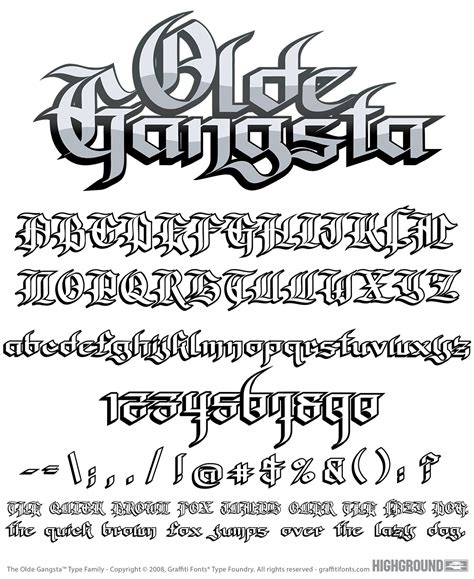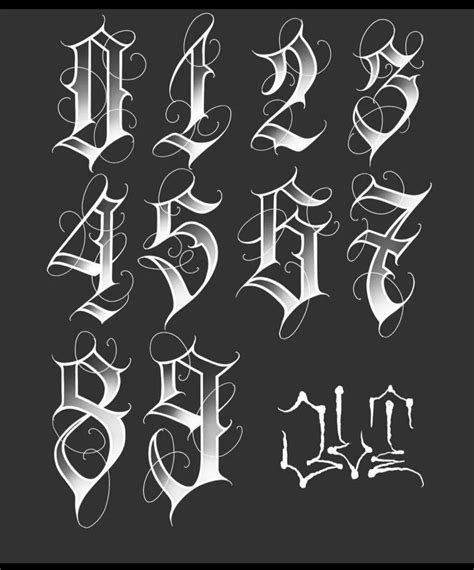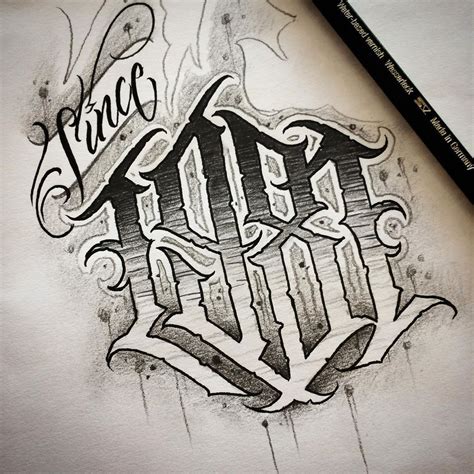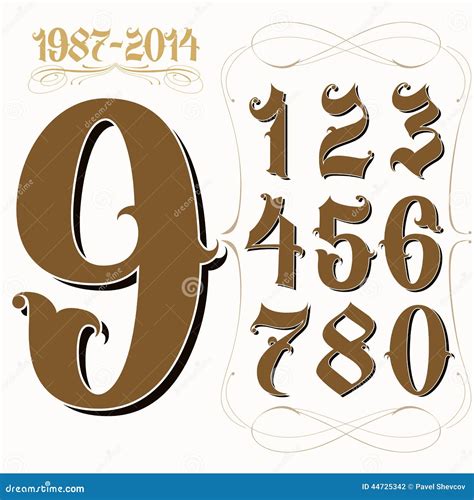
Gangster Chicano Number Fonts have a rich history and cultural significance, deeply rooted in the vibrant and expressive world of Chicano art and graffiti. These fonts are more than just a stylistic choice; they are a form of visual storytelling that reflects the experiences, struggles, and triumphs of the Chicano community. Understanding the origins, evolution, and cultural impact of these fonts provides a deeper appreciation for their unique aesthetic and the stories they tell.
Origins of Gangster Chicano Number Fonts
The roots of Gangster Chicano Number Fonts can be traced back to the 1960s and 1970s, a period marked by significant social and political changes in the United States. During this time, the Chicano community, particularly in urban areas like Los Angeles, was grappling with issues of identity, discrimination, and social justice. Graffiti became a powerful medium for expressing these sentiments, and the distinctive number fonts emerged as a key element of this visual language.
These fonts were often used to mark territory, signify gang affiliation, or simply to leave a personal mark on the urban landscape. The numbers themselves were not just arbitrary symbols; they often carried specific meanings and were used to convey messages that were both personal and communal. For example, the number "13" is often associated with the Sureños, a group of street gangs in Southern California, while the number "14" is linked to the Norteños, their counterparts in Northern California.
The Evolution of Gangster Chicano Number Fonts
Over the years, Gangster Chicano Number Fonts have evolved significantly, reflecting the changing dynamics of the Chicano community and the broader cultural landscape. Initially, these fonts were characterized by their bold, blocky style, often featuring thick outlines and sharp angles. This style was both practical and symbolic, as it allowed the numbers to stand out against various surfaces and conveyed a sense of strength and defiance.
As the years progressed, the fonts began to incorporate more intricate designs and decorative elements. Artists started experimenting with different styles, such as bubble letters, wildstyle, and 3D effects, adding layers of complexity and visual interest. These evolutions were driven by a desire to push the boundaries of what was possible within the medium and to create more personalized and expressive forms of communication.
Today, Gangster Chicano Number Fonts continue to evolve, influenced by a wide range of artistic movements and cultural trends. Digital tools and software have also played a significant role in this evolution, allowing artists to create more detailed and sophisticated designs. Despite these changes, the core elements of these fonts—boldness, clarity, and cultural significance—remain intact.
Cultural Significance of Gangster Chicano Number Fonts
The cultural significance of Gangster Chicano Number Fonts cannot be overstated. These fonts are more than just a visual style; they are a form of cultural expression that reflects the unique experiences and perspectives of the Chicano community. They serve as a visual language that communicates identity, belonging, and resistance.
For many Chicanos, these fonts are a source of pride and a way to reclaim their cultural heritage. They are often used in art, music, and fashion, serving as a visual reminder of the community's resilience and creativity. The fonts have also gained recognition beyond the Chicano community, influencing mainstream art and design and inspiring artists from diverse backgrounds.
One of the most notable aspects of Gangster Chicano Number Fonts is their ability to convey complex emotions and narratives through simple, stylized numbers. This ability to communicate so much with so little is a testament to the power of visual storytelling and the enduring appeal of these fonts.
Key Characteristics of Gangster Chicano Number Fonts
Gangster Chicano Number Fonts are characterized by several key features that set them apart from other styles of typography. Understanding these characteristics can help appreciate the unique aesthetic and cultural significance of these fonts.
Bold and Thick Lines: One of the most distinctive features of these fonts is their use of bold, thick lines. This not only makes the numbers stand out against various backgrounds but also conveys a sense of strength and power.
Sharp Angles and Edges: The fonts often feature sharp angles and edges, which add to their bold and dynamic appearance. These elements also contribute to the overall sense of energy and movement in the design.
Decorative Elements: Many Gangster Chicano Number Fonts incorporate decorative elements, such as arrows, stars, and other symbols. These elements add layers of meaning and visual interest, making the fonts more expressive and personalized.
Cultural Symbols: The fonts often include cultural symbols and motifs that are significant to the Chicano community. These symbols can range from traditional Aztec designs to modern street art elements, reflecting the community's rich cultural heritage.
Personalization: One of the most important aspects of these fonts is their ability to be personalized. Artists often customize the fonts to reflect their individual styles and experiences, making each design unique and meaningful.
Examples of Gangster Chicano Number Fonts
To fully appreciate the diversity and creativity of Gangster Chicano Number Fonts, it's helpful to look at some examples. These fonts come in a variety of styles, each with its own unique characteristics and cultural significance.
Block Style: This is one of the most traditional styles of Gangster Chicano Number Fonts. It features bold, blocky letters with thick outlines and sharp angles. This style is often used for its simplicity and clarity, making it easy to read from a distance.
Bubble Style: The bubble style is characterized by its rounded, inflated letters. This style adds a playful and dynamic element to the design, making it stand out against more traditional block styles.
Wildstyle: Wildstyle fonts are known for their intricate and complex designs. They often feature interlocking letters, arrows, and other decorative elements, creating a sense of movement and energy.
3D Style: The 3D style adds depth and dimension to the numbers, making them appear more realistic and dynamic. This style is often used to create a sense of depth and perspective in the design.
Table of Gangster Chicano Number Fonts Styles
| Style | Characteristics | Common Uses |
| Block Style | Bold, blocky letters with thick outlines and sharp angles | Territory marking, gang affiliation |
| Bubble Style | Rounded, inflated letters with a playful and dynamic element | Personal expression, artistic designs |
| Wildstyle | Intricate and complex designs with interlocking letters and decorative elements | Artistic expression, complex narratives |
| 3D Style | Depth and dimension, realistic and dynamic appearance | Artistic designs, visual storytelling |
The Impact of Gangster Chicano Number Fonts on Modern Art and Design
Gangster Chicano Number Fonts have had a significant impact on modern art and design, influencing a wide range of creative disciplines. Their bold, expressive style has inspired artists and designers from various backgrounds, leading to the incorporation of these fonts into mainstream art, fashion, and media.
In the world of graphic design, these fonts are often used to create eye-catching logos, posters, and advertisements. Their ability to convey strength and energy makes them ideal for branding and marketing purposes. In fashion, these fonts are used to create unique and expressive designs on clothing and accessories, reflecting the wearer's cultural identity and personal style.
In the realm of music, Gangster Chicano Number Fonts are often used in album covers, concert posters, and merchandise. They add a layer of authenticity and cultural significance to the music, resonating with fans who appreciate the rich heritage of the Chicano community.
**
One of the most notable examples of the impact of these fonts is their influence on street art and graffiti. Many contemporary street artists draw inspiration from the bold, expressive style of Gangster Chicano Number Fonts, incorporating elements of these fonts into their own work. This cross-pollination of styles has led to the creation of new and innovative forms of visual expression, further enriching the cultural landscape.
📝 Note: The use of Gangster Chicano Number Fonts in modern art and design is a testament to their enduring appeal and cultural significance. These fonts continue to inspire artists and designers, reflecting the community's resilience and creativity.
In conclusion, Gangster Chicano Number Fonts are a vibrant and expressive form of visual storytelling that reflects the rich cultural heritage of the Chicano community. From their origins in the urban landscapes of the 1960s and 1970s to their evolution into complex and intricate designs, these fonts have played a crucial role in shaping the visual language of the community. Their bold, dynamic style and cultural significance continue to inspire artists and designers, making them an enduring symbol of Chicano identity and creativity.